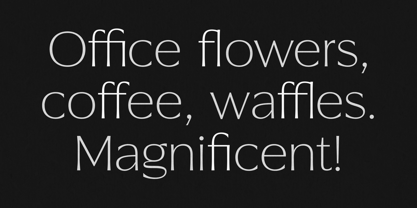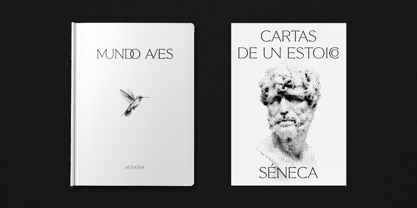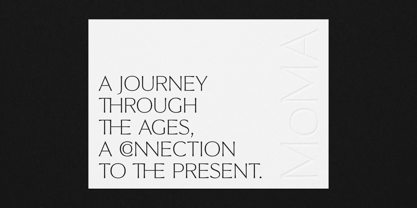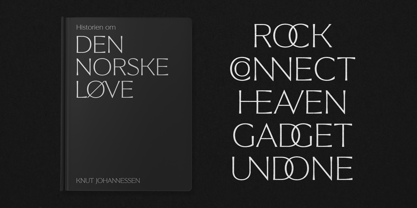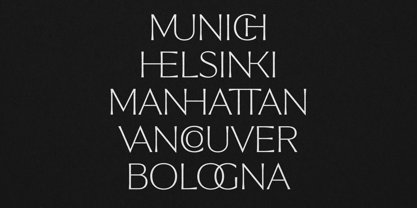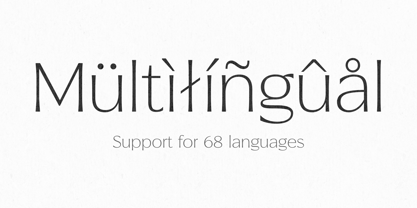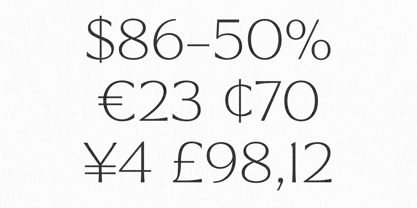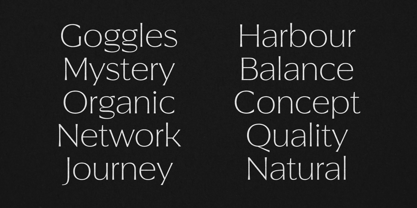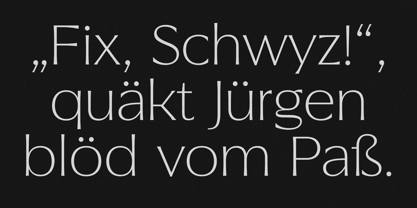
Aetheria
von M10 Type
Die Schriftfamilie Aetheria wurde von Mariano Diez entworfen und von M10 Type veröffentlicht. Aetheria enthält 1 Stile. Mehr über diese Familie
Aetheria is a display typeface built around one defining feature: an extensive system of discretionary ligatures — over 25 — that transform headlines into something closer to lettering than type. Drawn from the tradition of engraved and inscribed letterforms, Aetheria carries the weight of classical typography while reading as contemporary. It works at large sizes, where its details become the design. Designed for editorial, music, cultural, and luxury brand applications.
Designer: Mariano Diez
Foundry: M10 Type